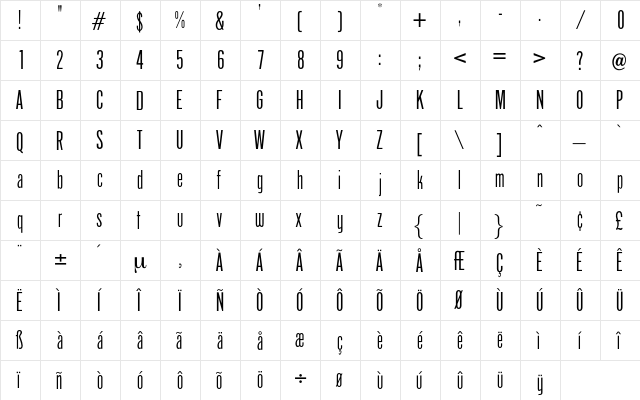
Arizona Regular
Design Context for Arizona Typeface
Arizona offers clean, dependable letterforms without strong stylistic allegiance, making it a practical choice for designers who need flexibility.
Pro Tip: Use Arizona in both headline and body roles to test its range before committing to a single application.